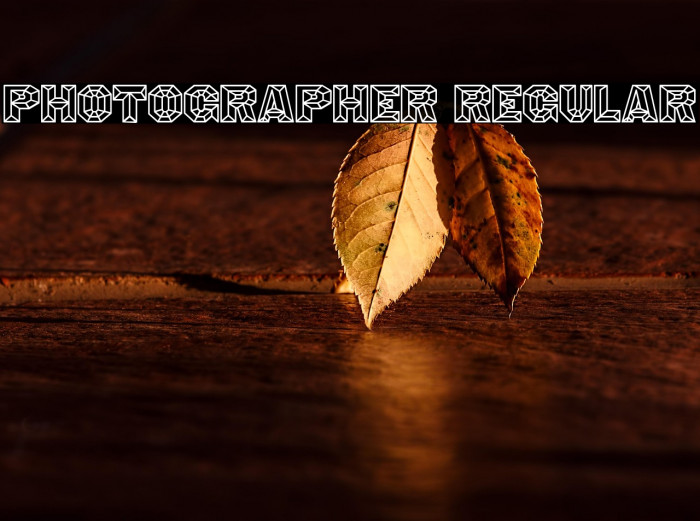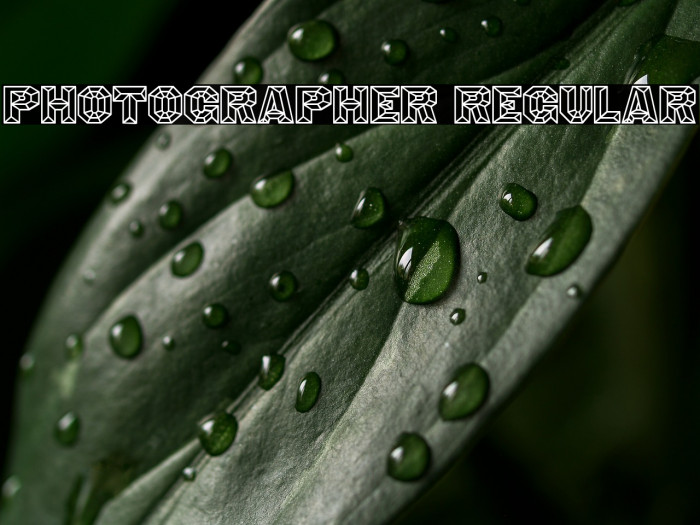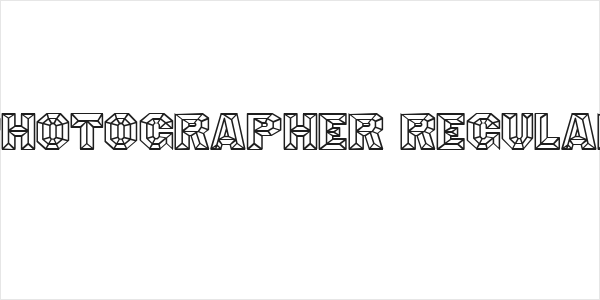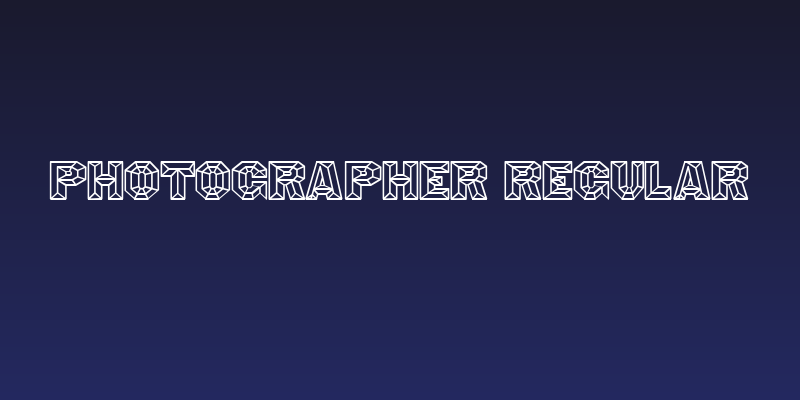
Photographer Regular Font
Photographer Regular Description
This font features a geometric and angular design, reminiscent of cut gemstones or crystals. Each letter is constructed with sharp lines and facets, creating a three-dimensional effect. The style is bold and eye-catching, making it ideal for decorative purposes. The uppercase letters are consistent in their intricate pattern, providing a cohesive look across the alphabet. This font is particularly suited for projects that require a modern and edgy aesthetic, such as branding for fashion or tech industries. Its unique structure makes it stand out, ensuring that any text set in this font will capture attention.
| Proposed Projects | Ideal for branding, posters, album covers, and any project needing a modern, edgy look. |